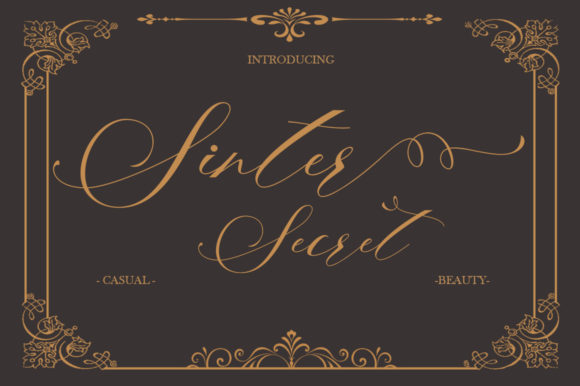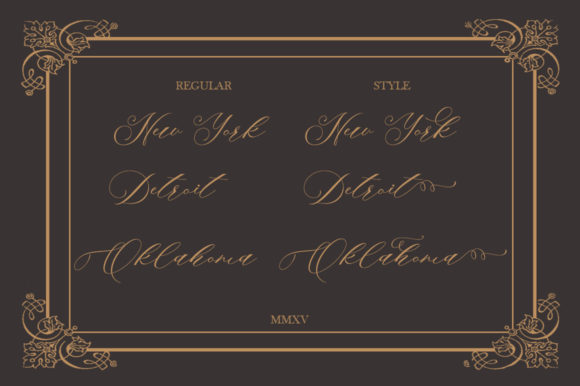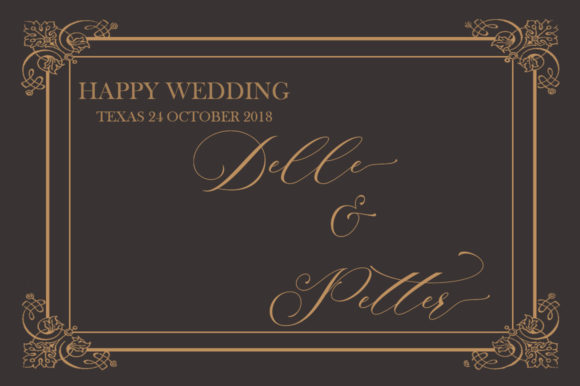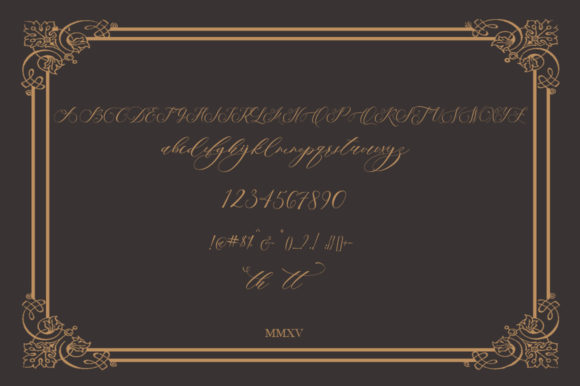
About Sinter Secret Font
The Sinter Secret is a beautiful calligraphy script. it comes with beautiful alternate characters in a hand lettering style. It was created to bring some elegance to all designs!
It has a subtle, clean, feminine, sensual, and glamorous look which makes it perfect for invitations, labels, menus, logos, stationery, letterpress, romantic novels, magazines, books, greeting / wedding cards, packaging, labels, and much more!